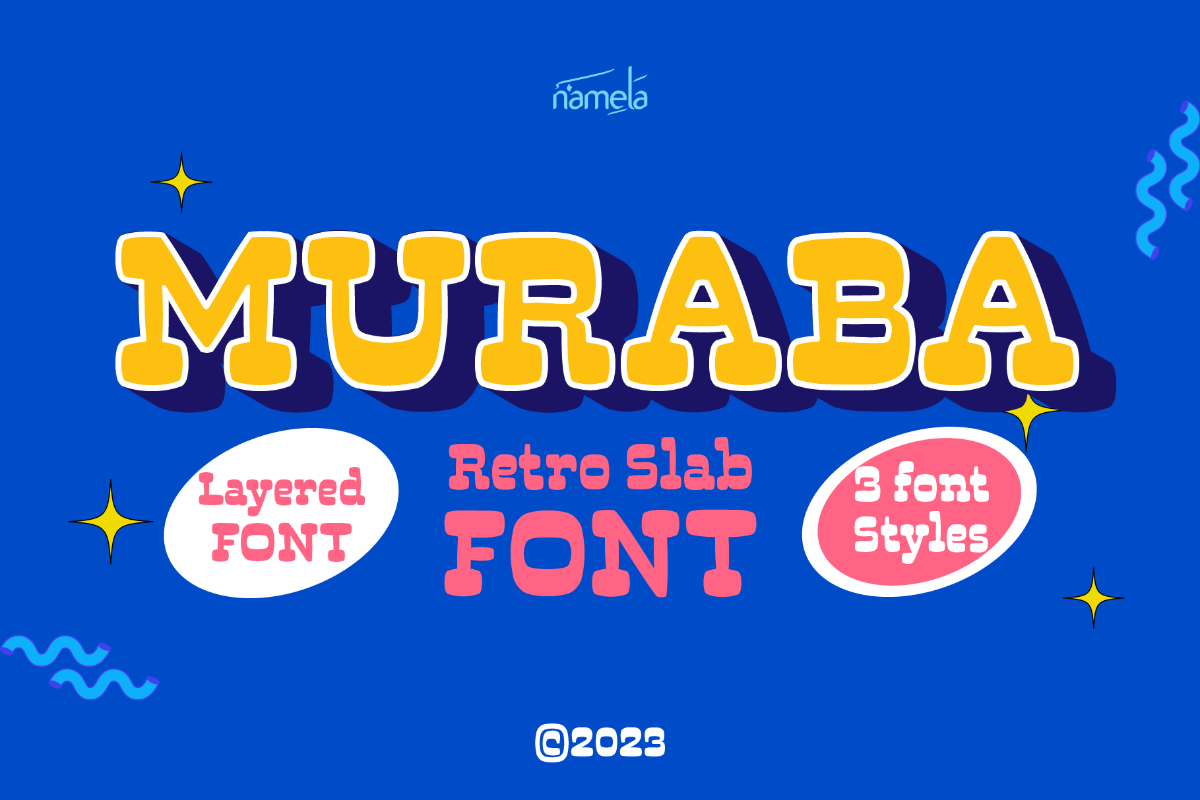
Muraba Outline
Muraba Font - A Retro Slab Serif Display Typeface for Branding & ePub Muraba is a retro slab serif display font designed for designers who want their typography to make a statement. Built on squared-off serifs, low stroke contrast, and a distinctly vintage character, Muraba brings the commanding presence of 19th-century advertising type into contemporary design.